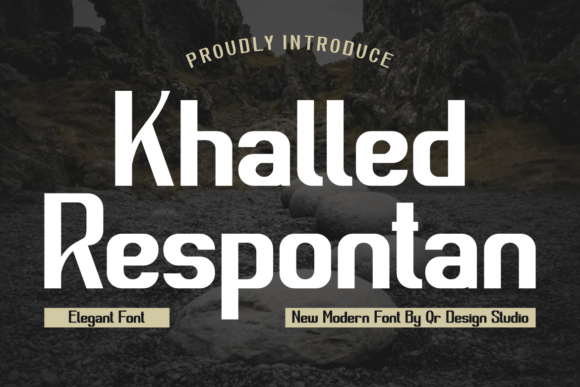
Step into the realm of digital artistry with Khalled Respontan, a font that speaks volumes. This captivating display typeface exudes boldness and authenticity, injecting a touch of individuality into your online presence. Crafted with meticulous attention to detail by renowned designer qrdesignstd, Khalled Respontan is not just a font; it's a statement piece that defines your brand.
Immerse yourself in a world of endless possibilities. Whether you're crafting a captivating logo, designing eye-catching sports apparel, or simply adding a dash of personality to your digital creations, Khalled Respontan is your perfect companion. Its versatile nature allows you to experiment with various design styles, ensuring that your creations never fail to leave a lasting impression.
With Khalled Respontan, your online store will transform into a visual masterpiece. Its bold and assertive presence commands attention, inviting customers to explore the wonders you have in store. Engage their senses and create an unforgettable shopping experience that will keep them coming back for more.
Embrace the power of Khalled Respontan and witness the impact it has on your brand. Its unique characteristics and undeniable charm will captivate your audience, leaving a lasting impression that will drive sales and establish your online presence as a force to be reckoned with.